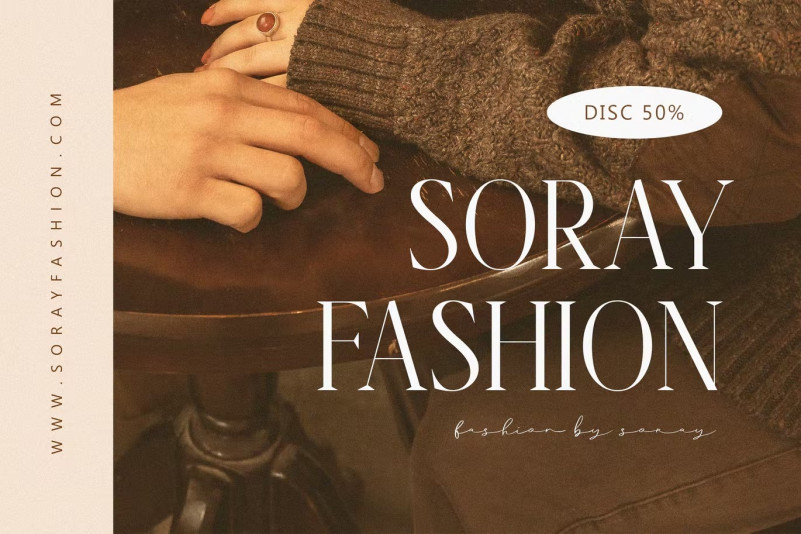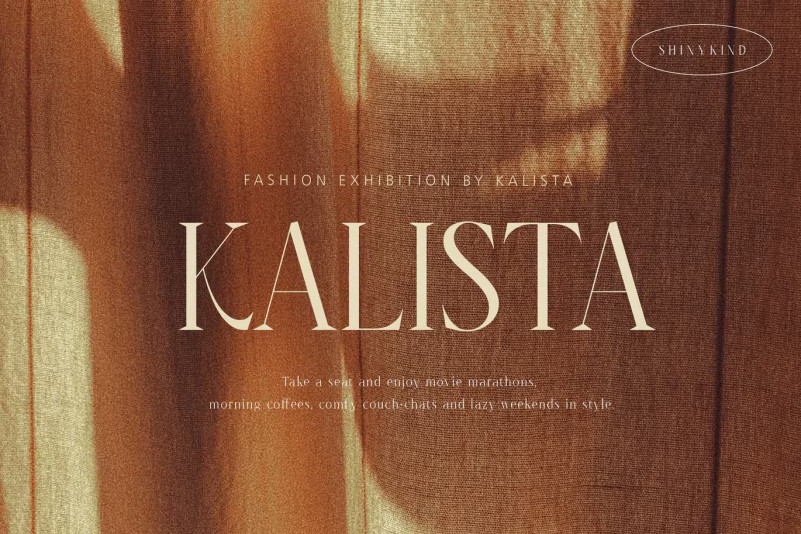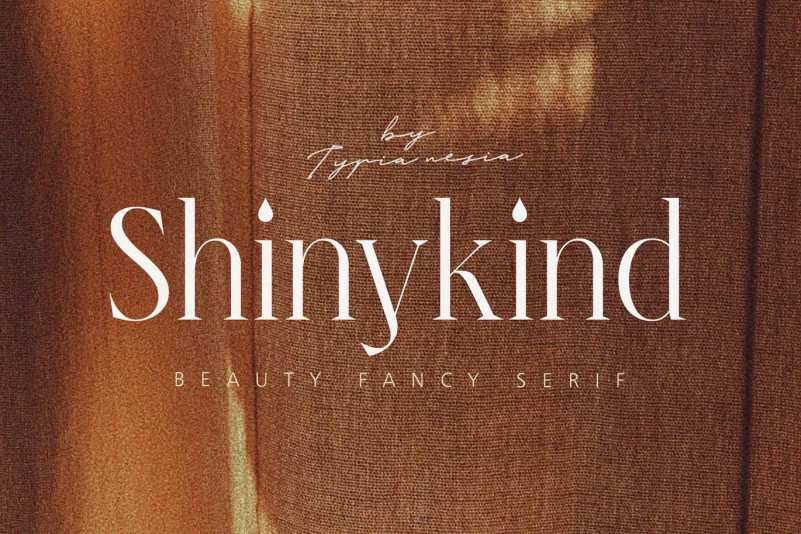
Shinykind Font
Shinykind – Beauty Elegant Aesthetic Serif – Expressive Feminine Logo Branding Font
Shinykind comes with some alternates and ligatures, so you can combine it to make a perfect typography design. It is perfect for your up coming projects. Such as luxury logo and branding, classy editorial design, woman magazine, cosmetic brand, fashion promotional, art gallery branding, museum, historical of architectural, boutique branding, stationery design, blog design, modern advertising design, card invitation, art quote, home decor, book/cover title, special events and any more.